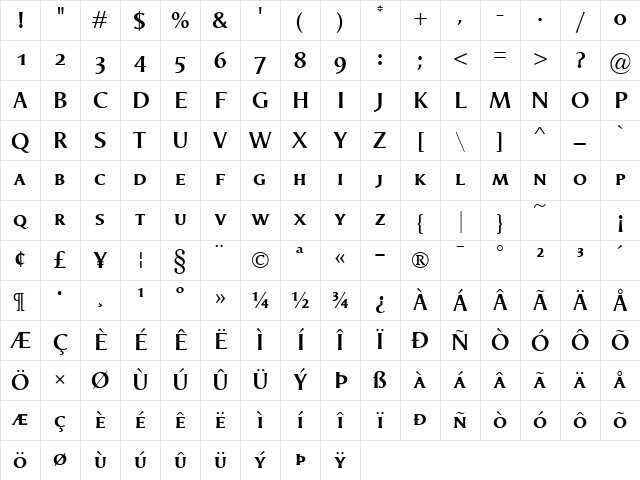
Odense SmallCaps DemiBold Free Font
Odense SmallCaps DemiBold
Style: DemiBold
Design Context for Odense SmallCaps
Odense SmallCaps is a composed and adaptable typeface that performs quietly and consistently across a wide range of design contexts. Its bold stroke weight gives it real presence on the page.